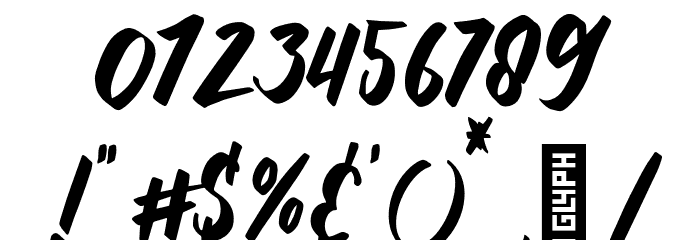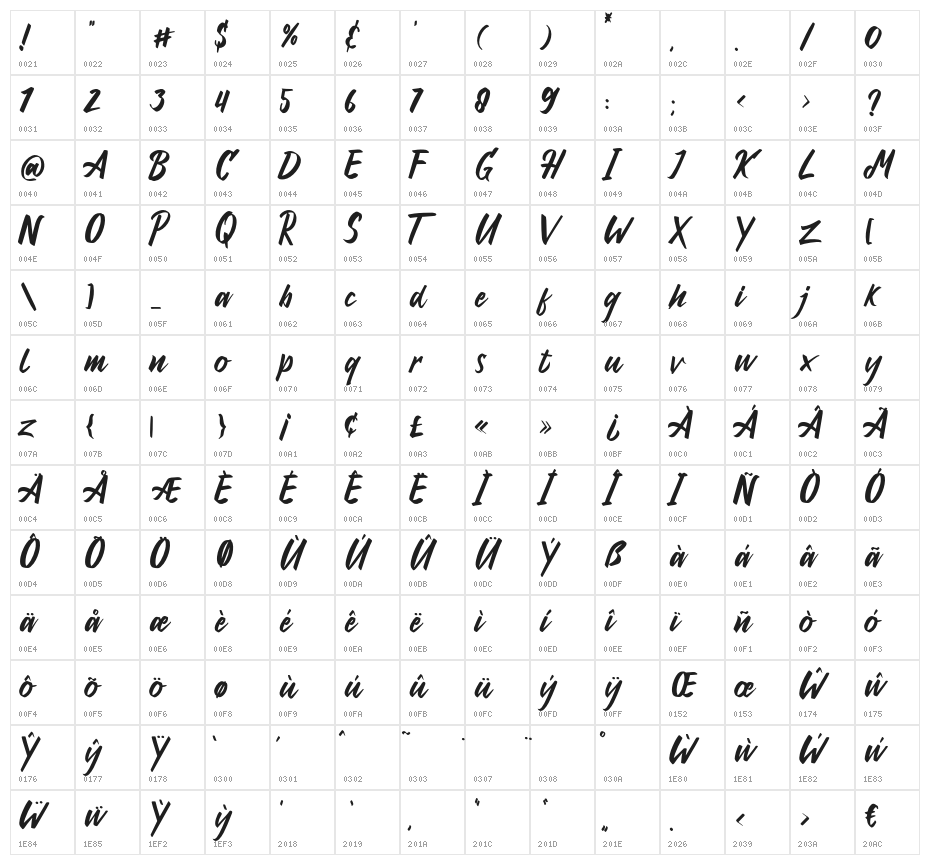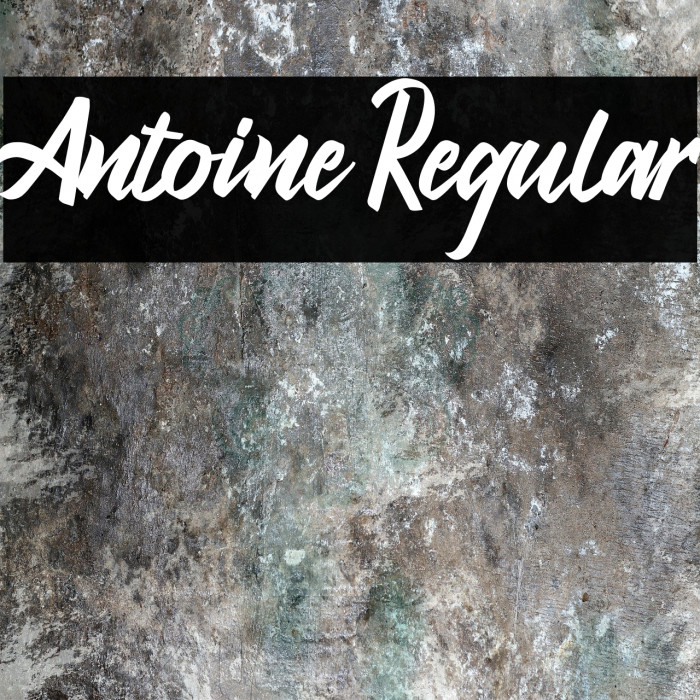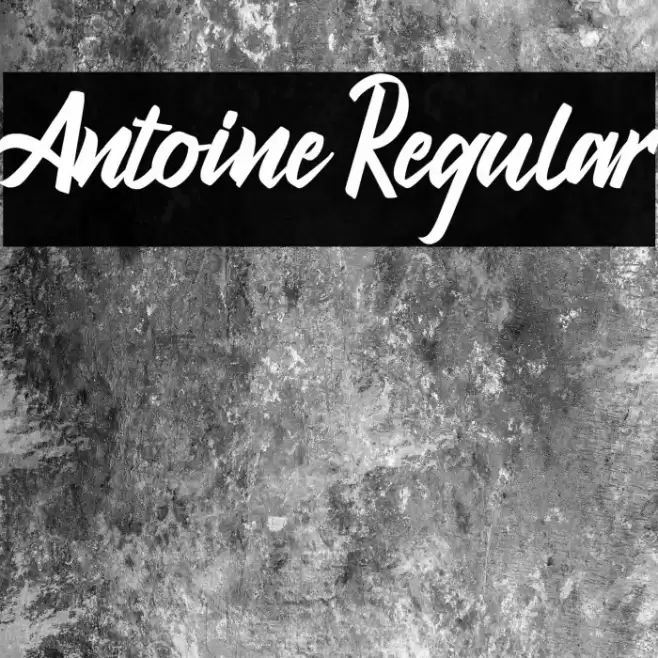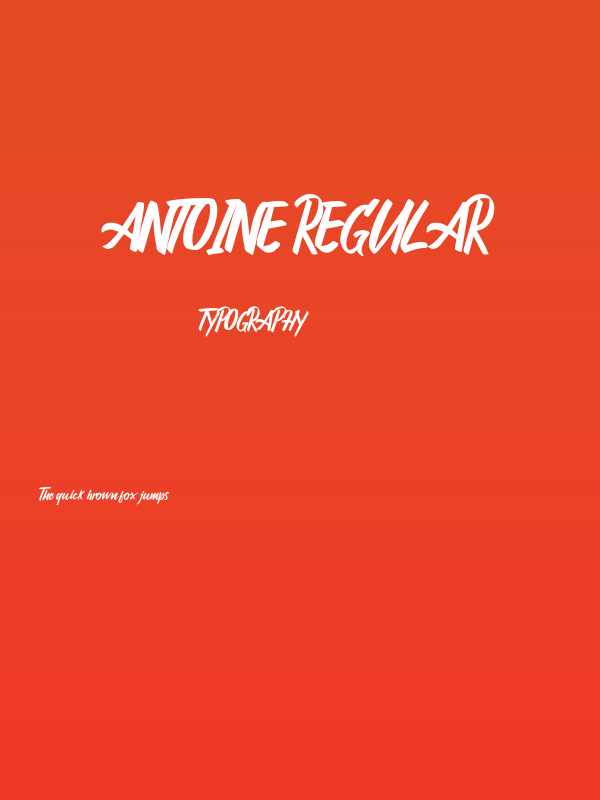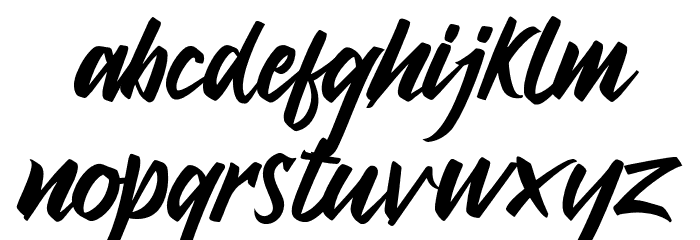
Antoine Regular Font
Antoine Regular Description
This font features a bold and dynamic script style, characterized by its fluid and energetic strokes. The uppercase letters are particularly striking, with a strong presence and a sense of movement that suggests a handwritten quality. The lowercase letters maintain this fluidity, offering a cohesive look that is both stylish and legible. The numerals are consistent with the overall design, providing a sense of balance and harmony. Special characters are included, adding versatility to the font's use. The overall impression is one of modern elegance, suitable for a variety of creative projects.
| Proposed Projects | Ideal for branding, logo design, invitations, and any project requiring a stylish, handwritten touch. |